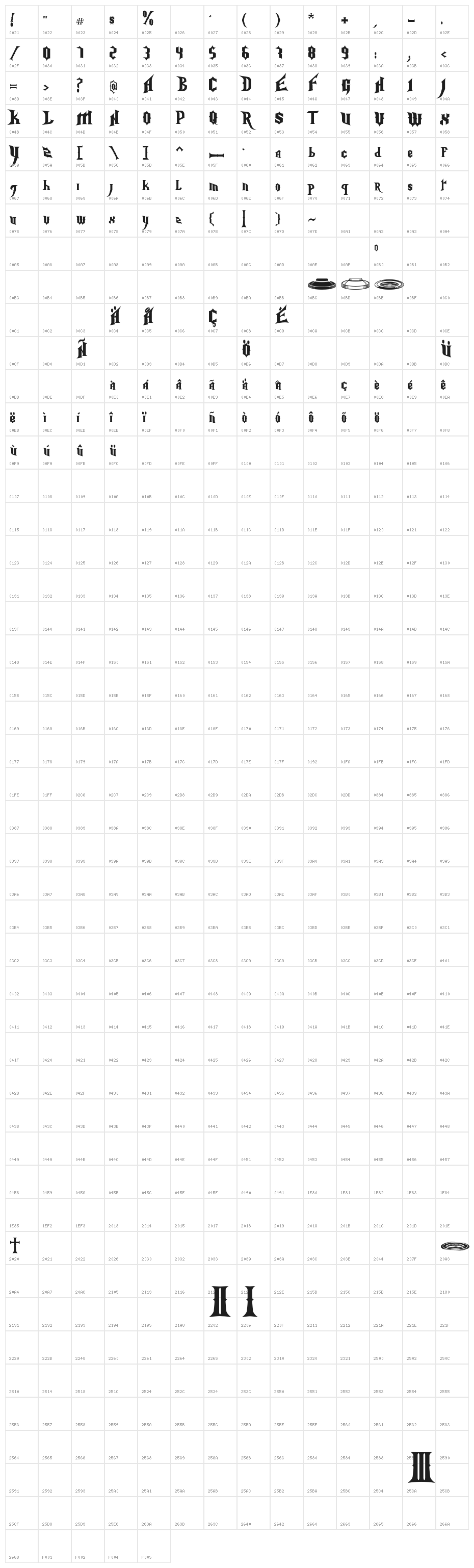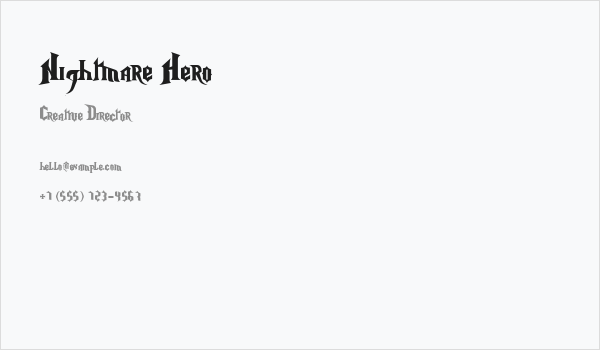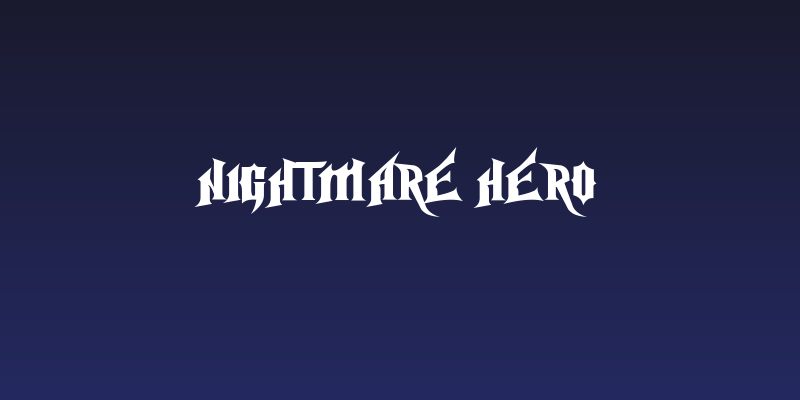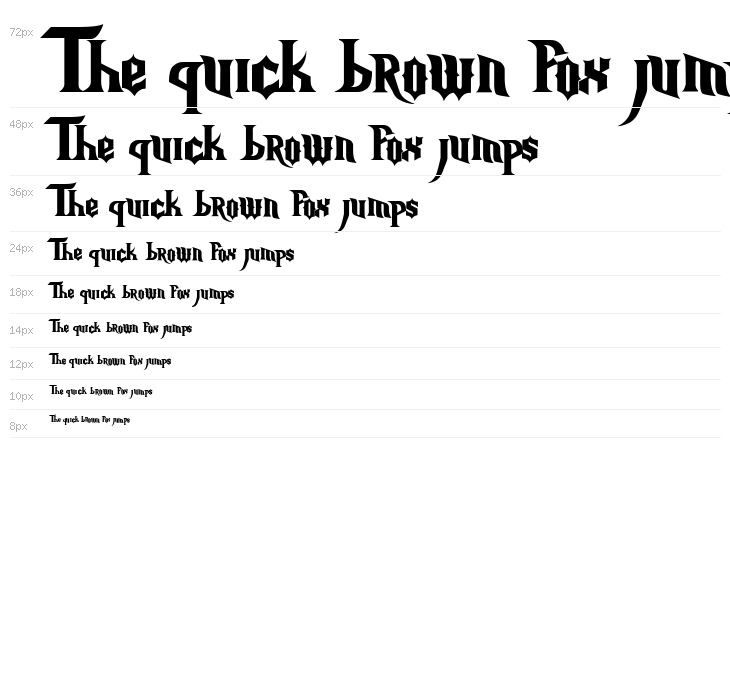
Nightmare Hero Font
Nightmare Hero Description
This font features a bold and dramatic style with sharp, angular edges and a gothic influence. The uppercase letters are particularly striking, with exaggerated serifs and a heavy weight that commands attention. The lowercase letters maintain the same angular aesthetic, providing a cohesive look throughout. Numbers and special characters are designed with the same boldness, making them stand out. This font is ideal for creating a strong visual impact, suitable for projects that require a touch of drama and intensity.
Overall StyleGothic, Dramatic
Proposed ProjectsIdeal for horror-themed posters, video game titles, album covers, and branding that requires a bold, edgy look.